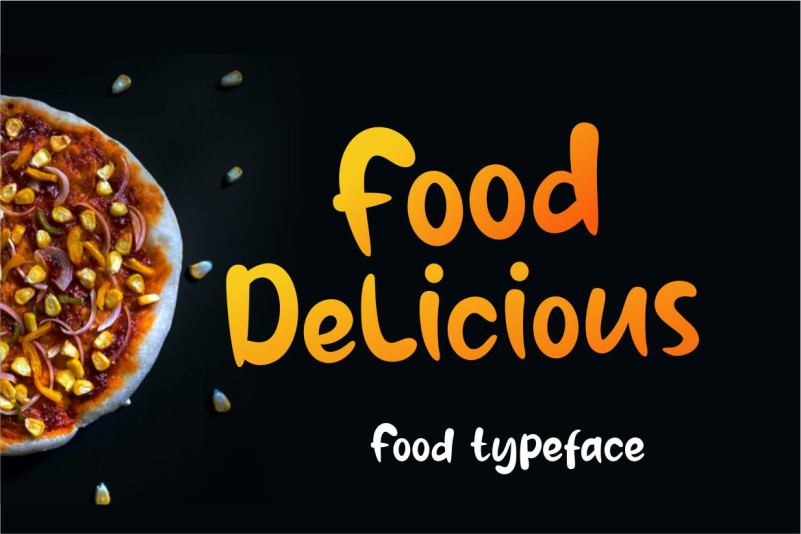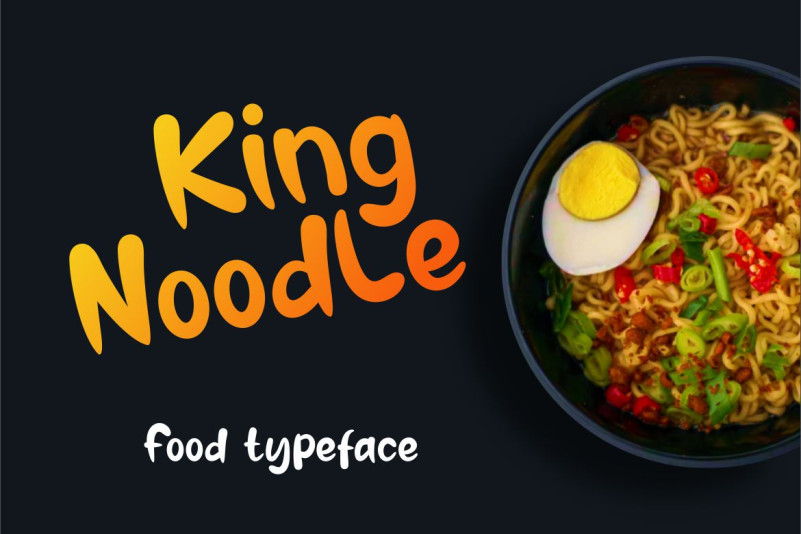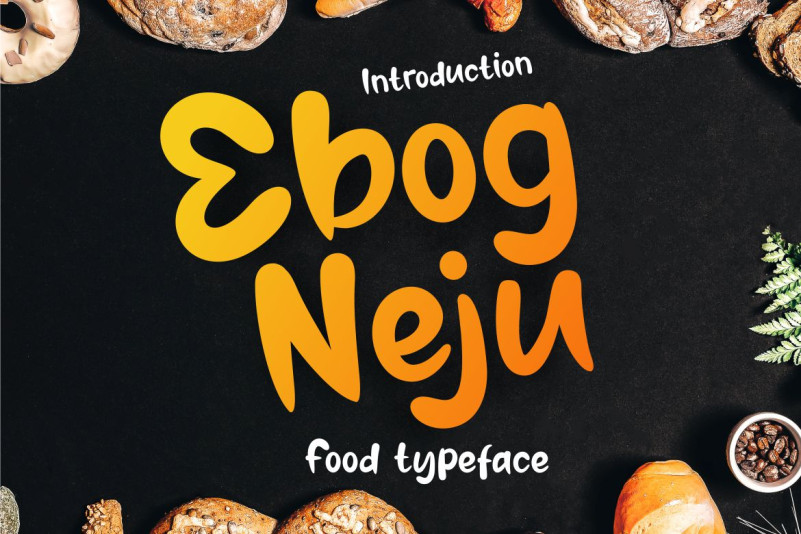
Ebog Neju Font
Neju Font – Modern Font is a bold and authentic display font. This font is perfect for any branding project such as logos, t-shirt printing, creative products, and more. extraordinary in a variety of contexts.